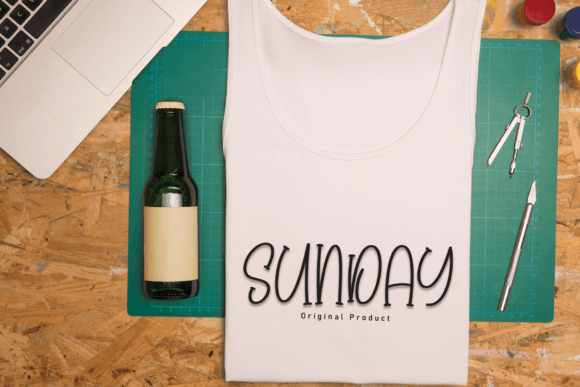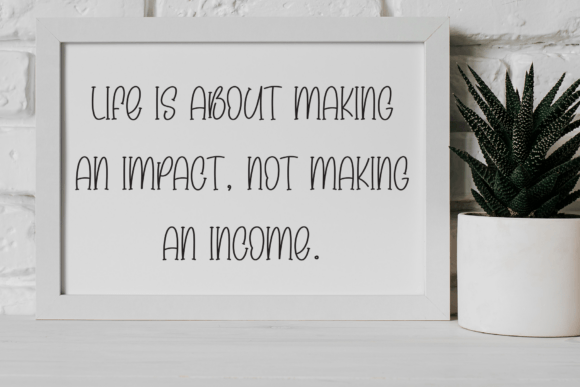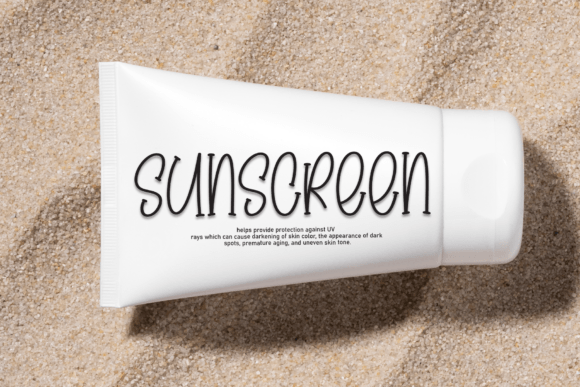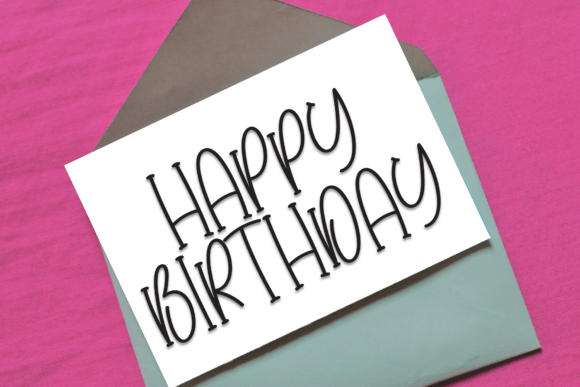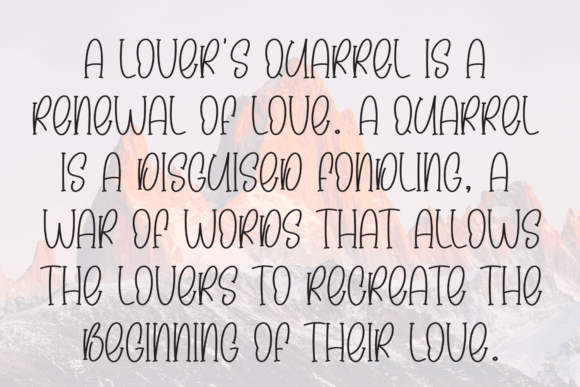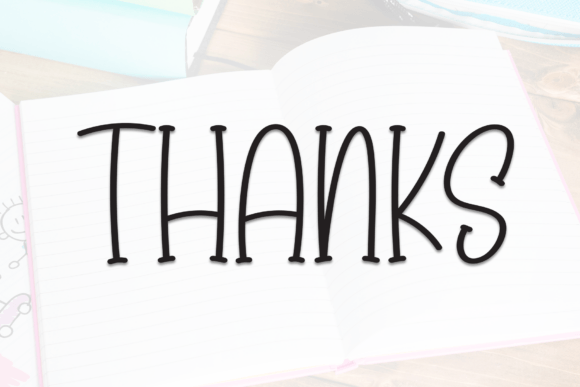
Introduction to Kinder Book Font
Do you remember the moment when you stumbled upon that perfect font that made your design project come alive? The one that gave it a unique touch, a dash of personality, and a sprinkle of whimsy? For designers, that moment is often the result of a well-chosen font that elevates their creative project from ordinary to extraordinary.
Today, we’re excited to introduce you to the Kinder Book Font, a delightful handwritten display font designed to add a pinch of fun and joy to your designs. Whether you’re working on a whimsical wedding invitation, a charming greeting card, or any other project that calls for a high-quality design resource, this font is sure to be your new partner in crime.
Key Features of Kinder Book Font
- High-quality design resource for creative projects, perfect for children’s books, educational materials, and more.
- Designed with a unique, playful style that is perfect for kids’ content, educational materials, and other creative projects.
- Perfect for use in digital and print projects, including books, magazines, posters, and more.
Honest Review: Kinder Book Font
I recently had the chance to work with the Kinder Book Font, and I must say it’s been a delightful experience. This font is perfect for designers who are looking for a high-quality, kid-friendly font for their creative projects. ✨
Here are some of the things I like about Kinder Book Font:
- High-quality design: The font is crisp, clear, and well-designed, making it perfect for print or digital applications.
- Perfect for children’s projects: The font is designed specifically for kid-friendly projects, making it a great choice for designers who specialize in this area.
- Only a few styles available: While the font is high-quality, it’s only available in a few styles, which may limit its versatility.
- No bold or italic options: If you need bold or italic text, you may need to use a separate font or get creative with layering.
Overall, I’m really impressed with Kinder Book Font. It’s a great resource for designers who are looking for a high-quality, kid-friendly font. With a little creativity, I’m sure you can work around the limitations and create some amazing designs with this font. ⚠️
Kinder Book Font
Tips for Getting the Most Out of Kinder Book Font
To get the most out of the Kinder Book Font, try experimenting with different font sizes, colors, and combinations to create unique and eye-catching designs.
The Kinder Book Font is perfect for:
- Children’s book covers and illustrations
- Party invitations and decorations
- Education and learning materials